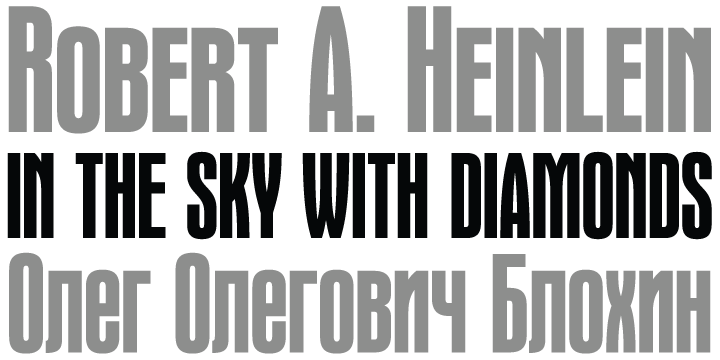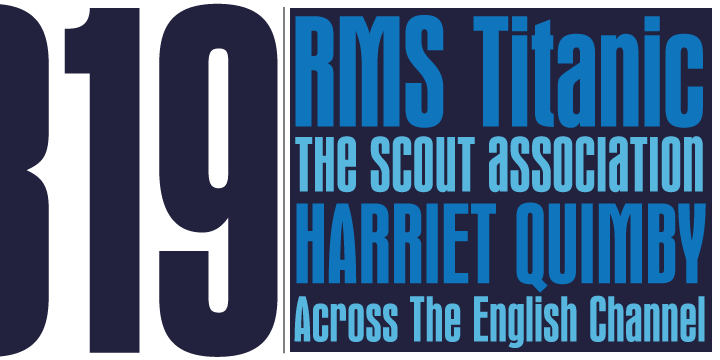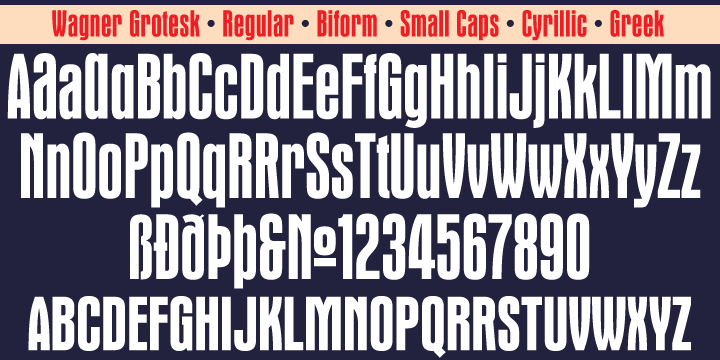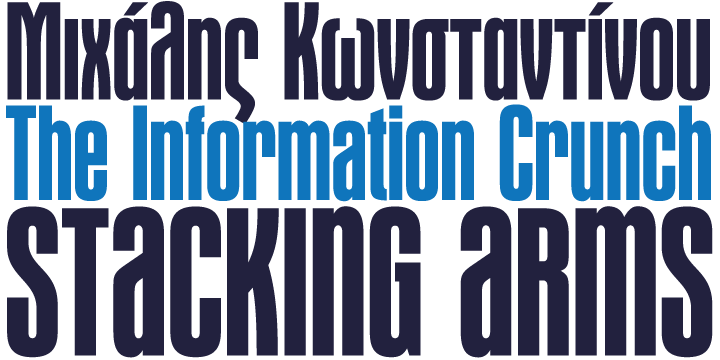
Wagner Grotesk Pro is a display sans font published by Canada Type.
This is the elaborate digital version of Edel Grotesque Bold Condensed (also known as Lessing, Reichgrotesk, and Wotan Bold Condensed) a 1914 typeface by Johannes Wagner, which was later adopted by pretty much every European type foundry, exported into the Americas, and used on war propaganda posters on either side of the Atlantic.
Bold, condensed, yet clear and legible, Wagner Grotesk is good for cramming information into tight spaces. Extended language support includes Western, Central and Eastern European character sets, as well as Greek, Cyrillic, Baltic, Esperanto, Maltese, Turkish, and Celtic/Welsh languages. Biform letters and small caps make Wagner Grotesk a most versatile and functional headline face.